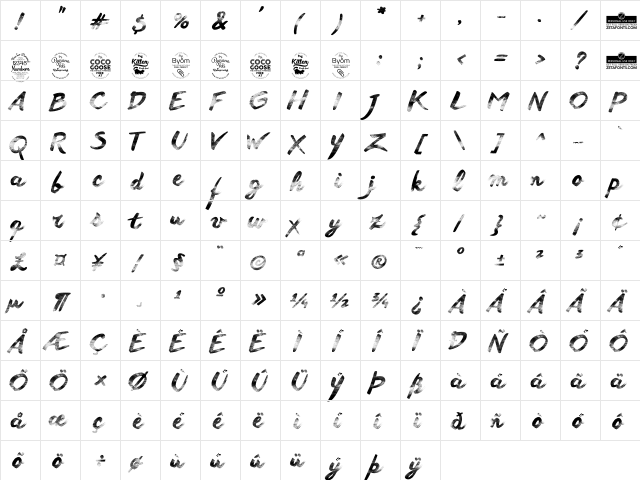
Another Wet Shabby Regular
| Foundry | studio kmzero |
| Designer | Francesco Canovaro |
Design Context for Another Wet Shabby Typeface
Another Wet Shabby is a composed and adaptable typeface that performs quietly and consistently across a wide range of design contexts.